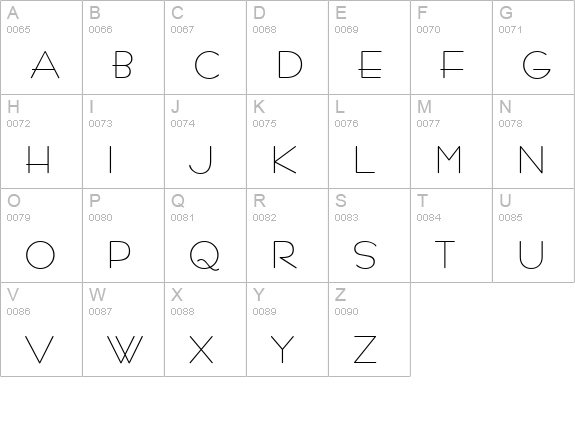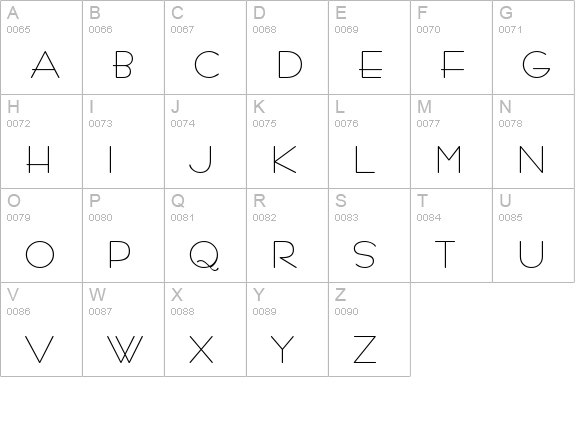
Fastrac Fashion Font Details
Introducing Fastrac Fashion font, a sleek and stylish typeface designed to make your projects stand out. This versatile font is perfect for a wide range of design applications, from fashion magazines to branding materials. With its modern and elegant aesthetic, Fastrac Fashion font exudes sophistication and charm. Not only does Fastrac Fashion font offer a touch of class to your designs, but it also comes with the added benefit of being free to download. That's right, you can elevate your creative projects without breaking the bank, as Fastrac Fashion font is freely available for download at FontsMarket.com. Whether you're creating a high-fashion editorial layout or designing a chic logo for a boutique, Fastrac Fashion font is sure to add a touch of glamour to your work. With its clean lines and contemporary flair, this font is a must-have for any designer looking to make a statement. Download Fastrac Fashion font today and take your designs to the next level!